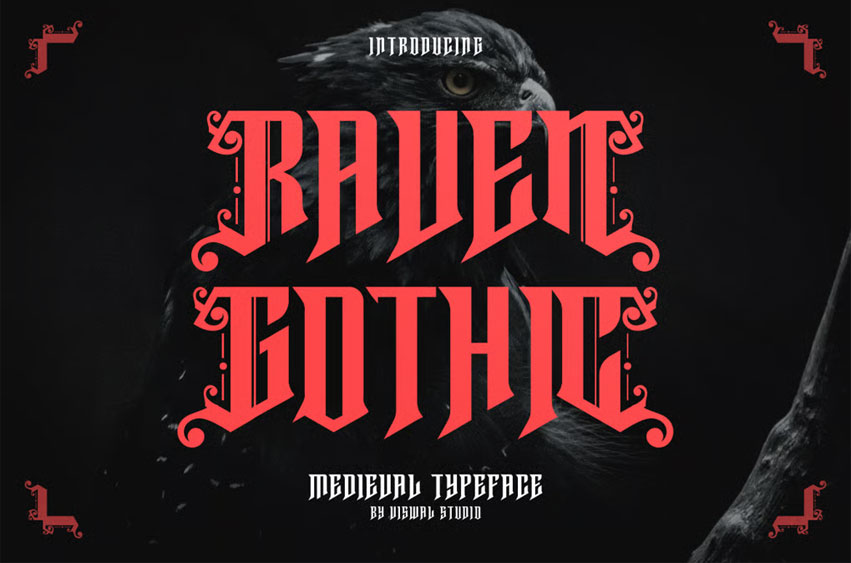
Raven Gothic Font
Raven Gothic Font Is A Blackletter Medieval Font. Can Make It Easier To Convey The Message In Your Design. Font Is Suitable For Logo, Labels, Badge, Branding, Magazine, Poster, Title, Gigs, Covers, etc.
Our Fonts Have Uppercase & Lowercase, numerals & Punctuation, and OpenType features. For Amazing Designs, You Can Mix With Other Fonts As A Complement.